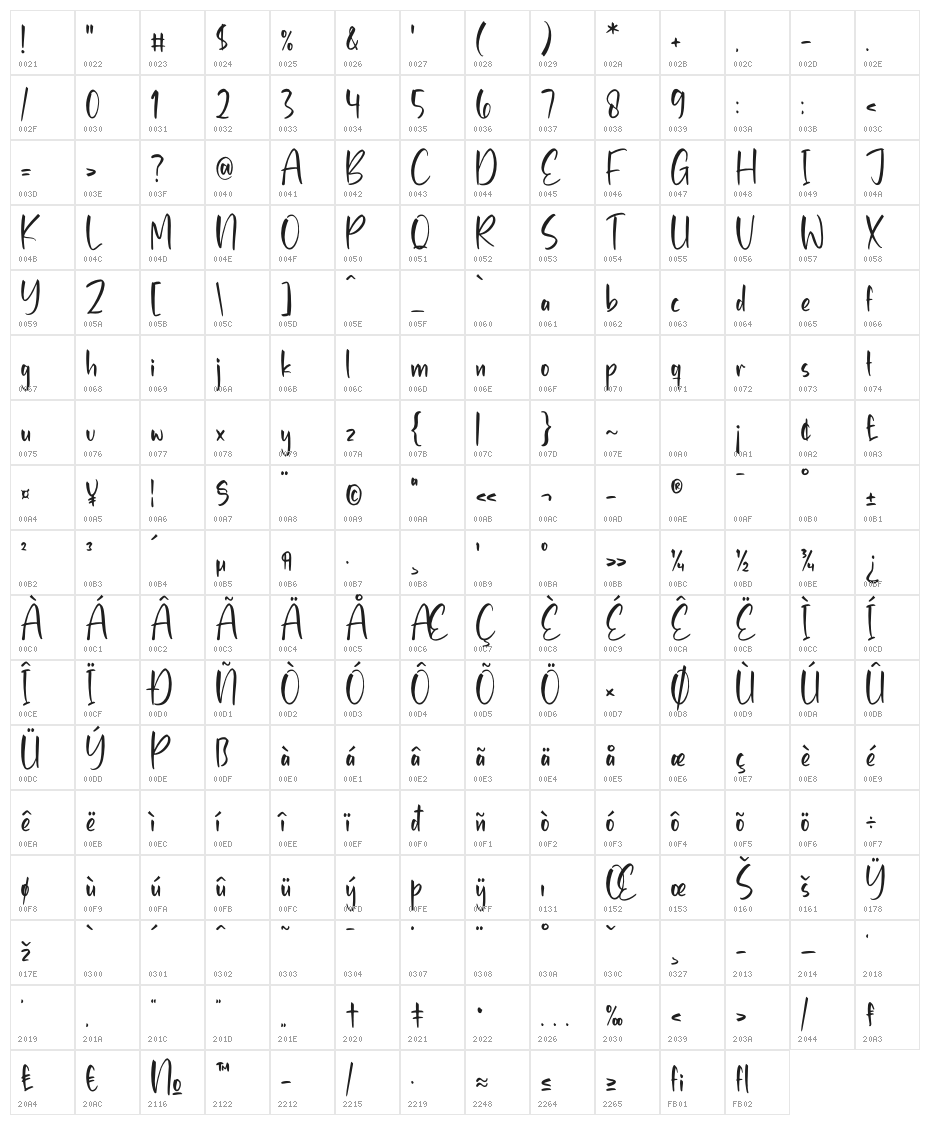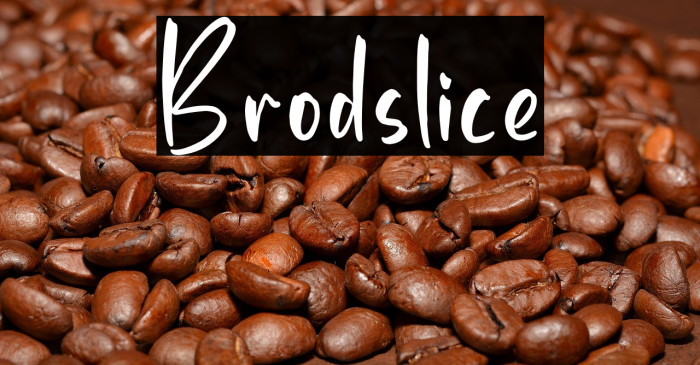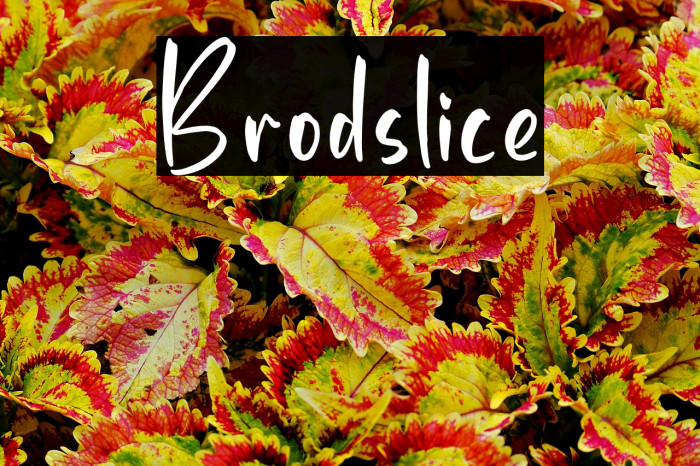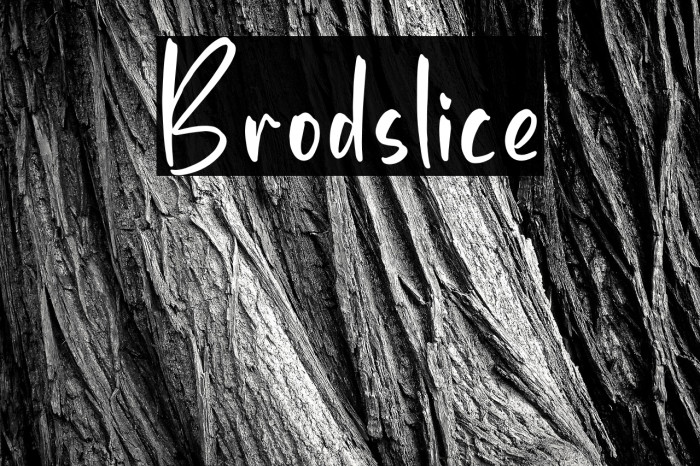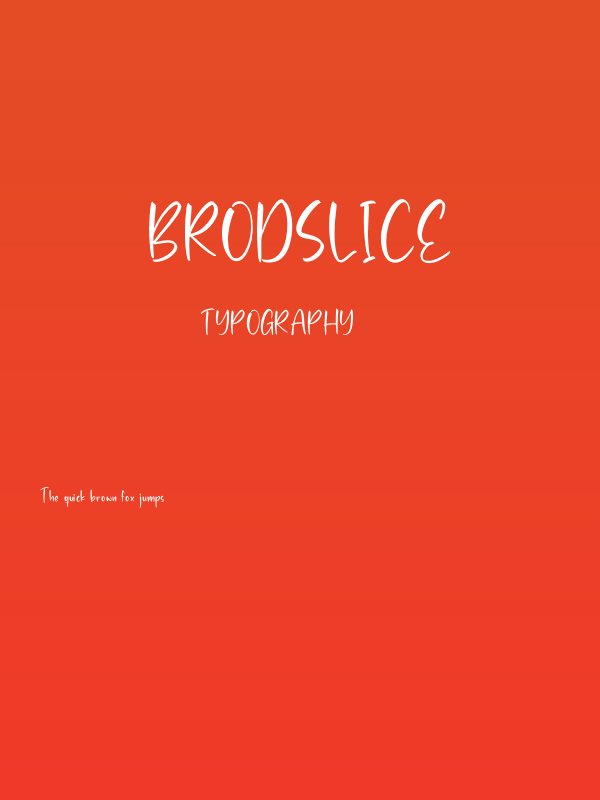
Brodslice Font
Brodslice Description
A playful, handwritten font with a casual and informal style, featuring irregular strokes and a lively appearance.
| Overall Style | Casual, Playful |
| Use Case | Headlines, Informal text, Personal projects |
| Proposed Projects | Greeting cards, invitations, personal branding. |